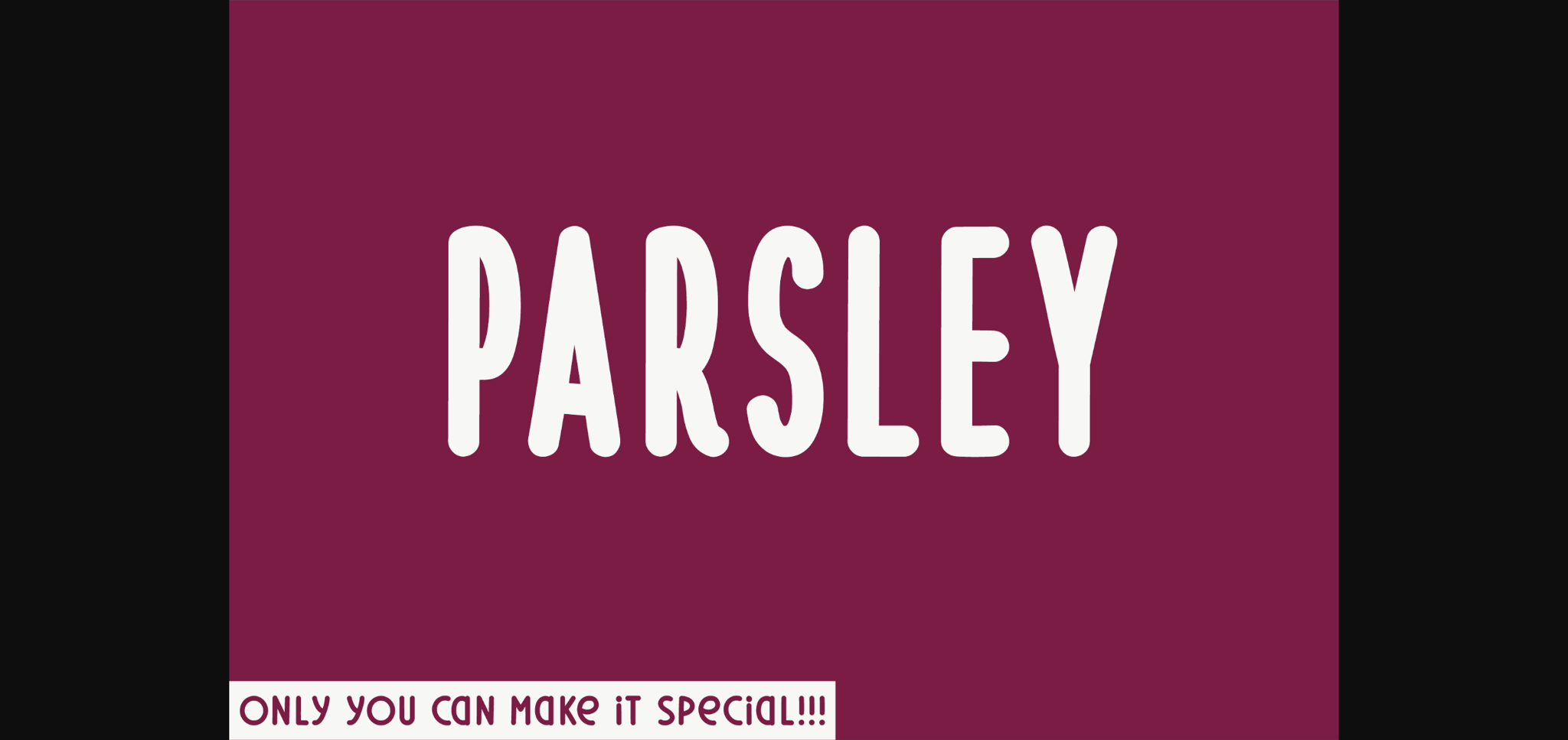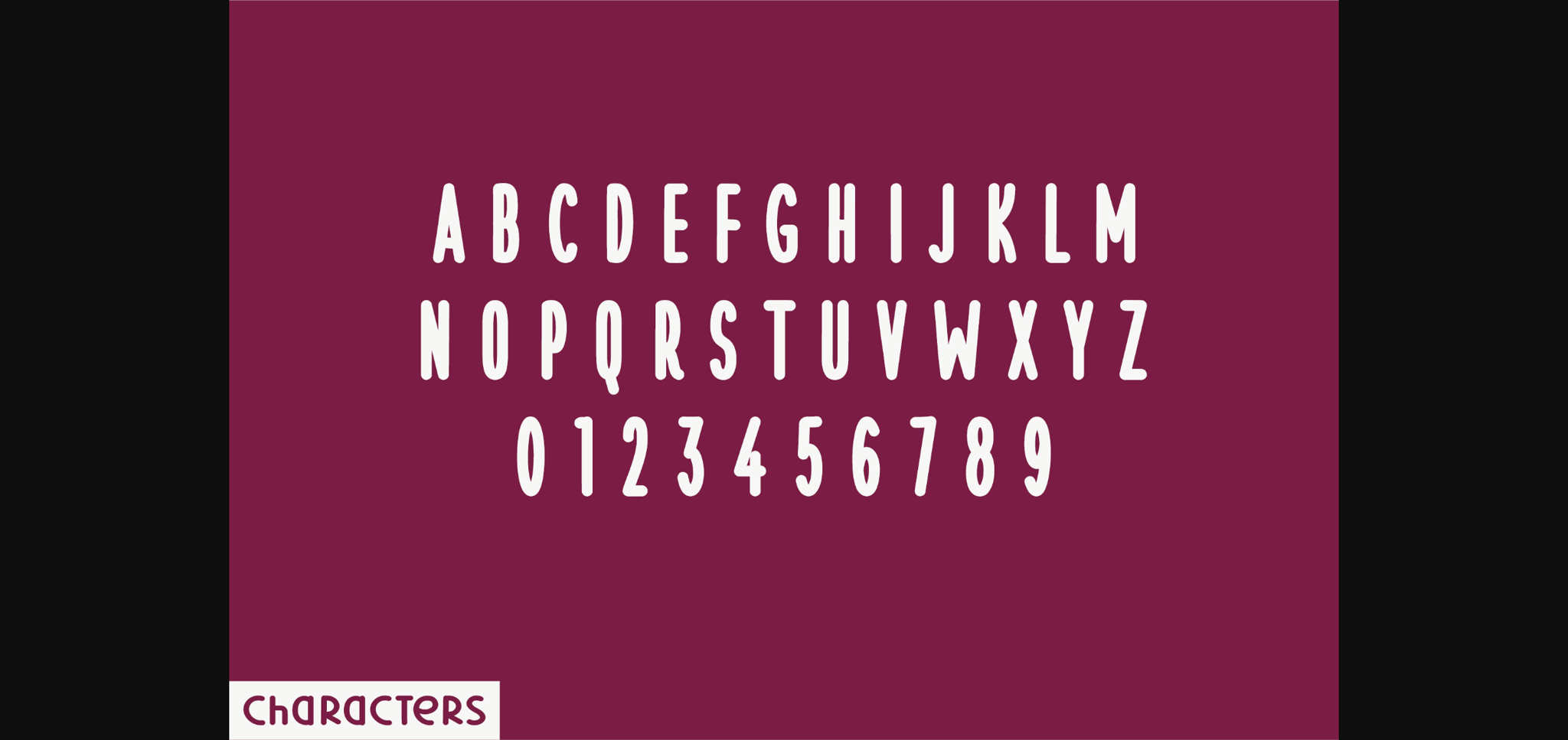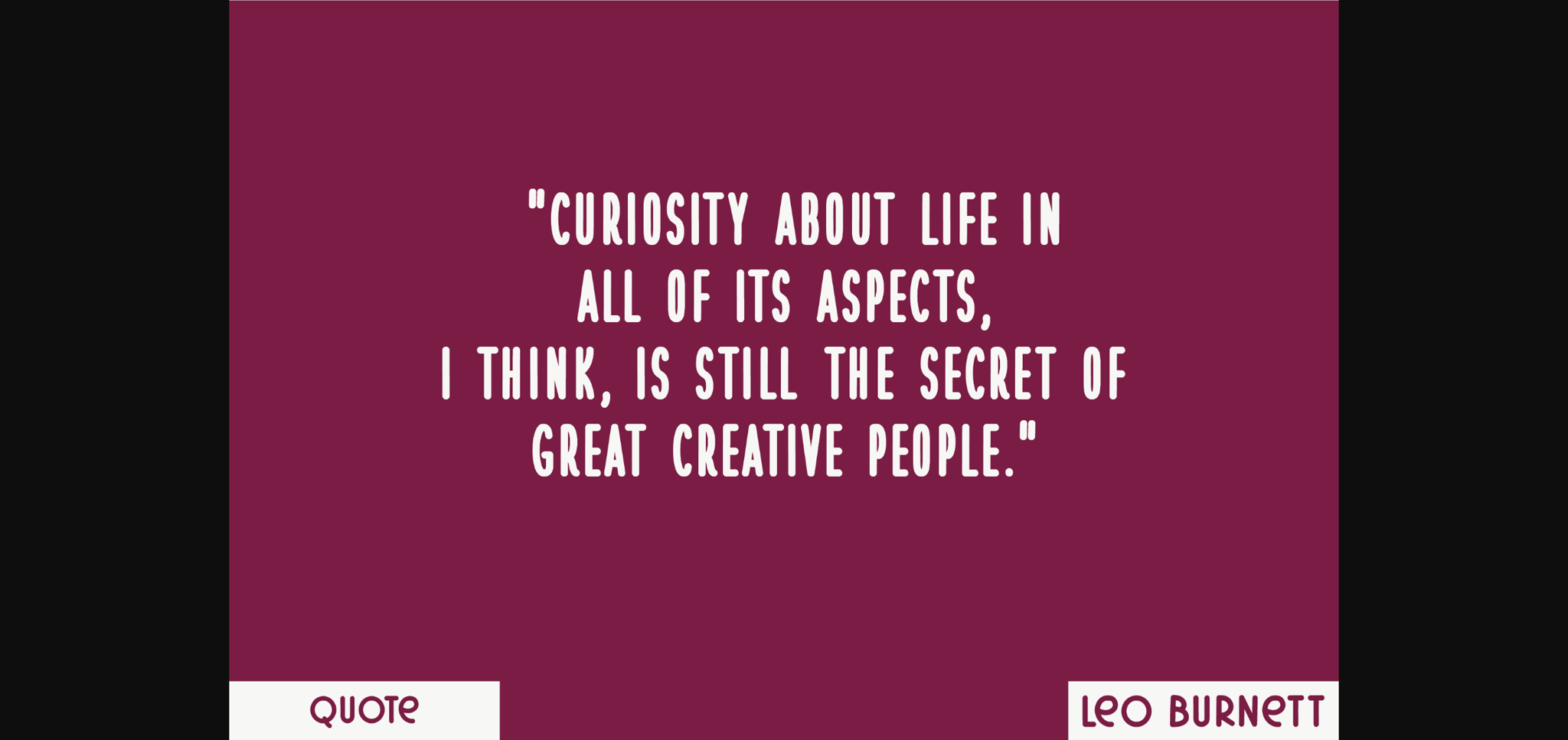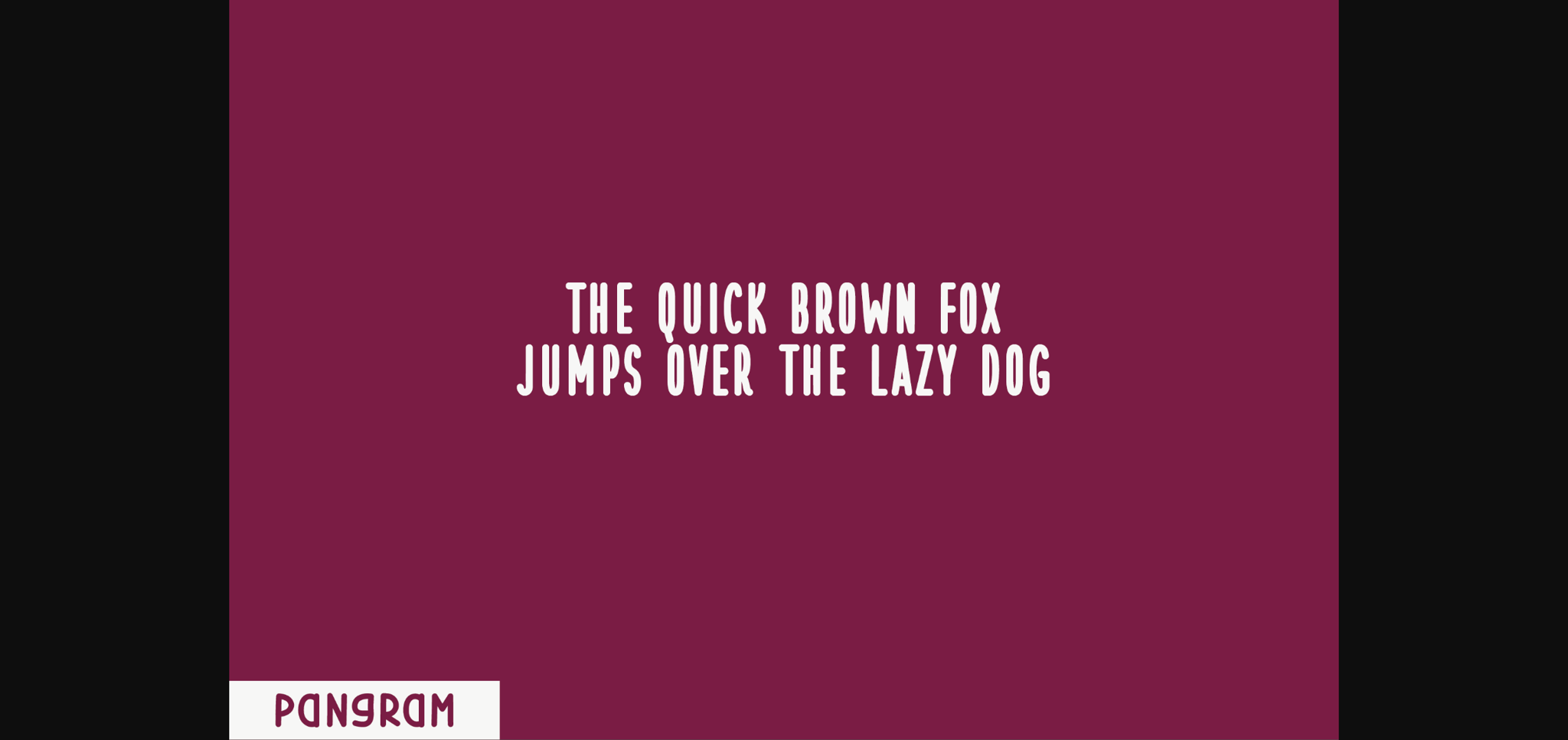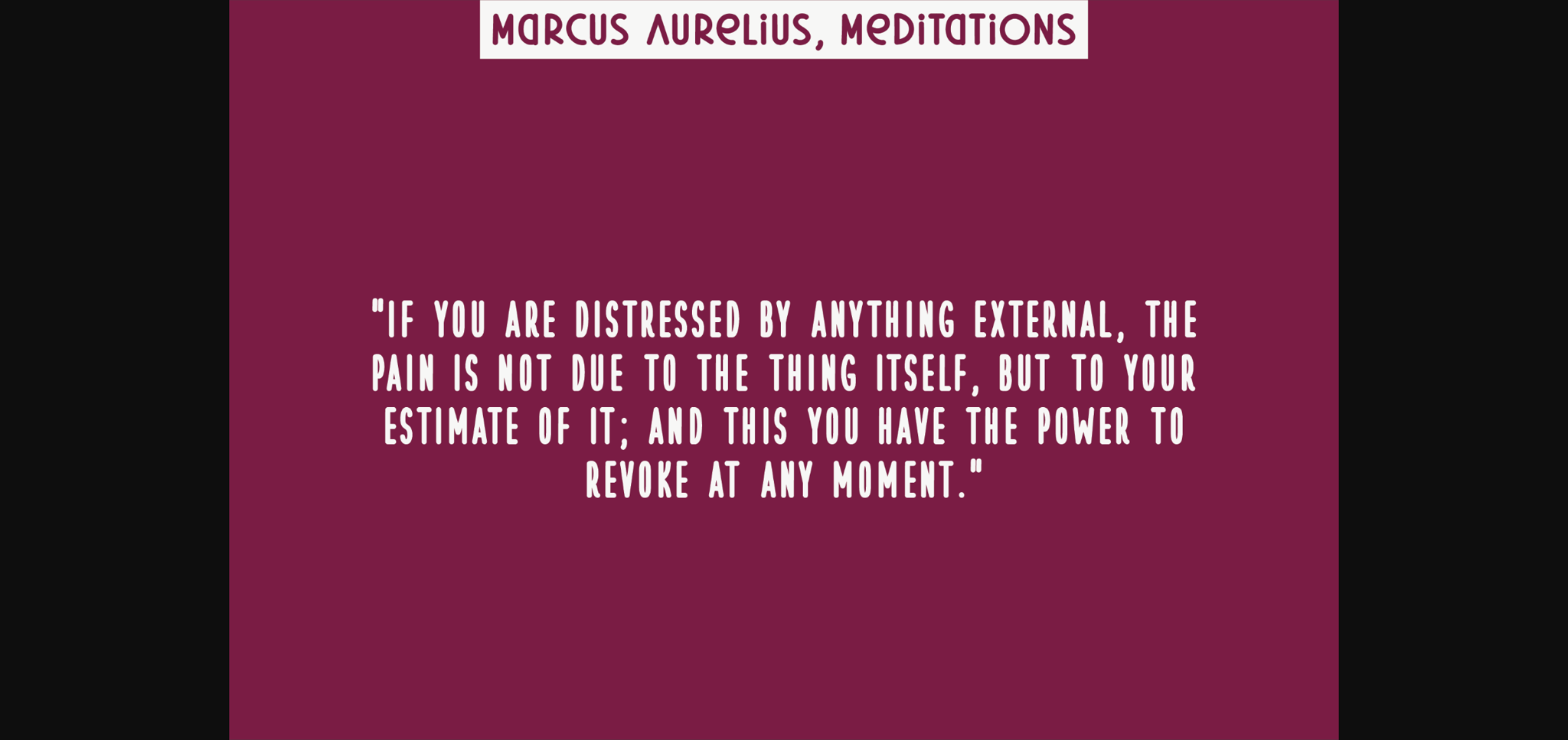
HomeSans Serif FontsParsley Font Sans Serif Fonts Parsley Font FacebookXPinterestWhatsApp 1 of 7 ... Parsley Font Poster 2... Parsley Font Poster 3... Parsley Font Poster 4... Parsley Font Poster 5... Parsley Font Poster 6... Parsley Font Poster 7... About Parsley Font Parsley is a natural sans serif font created without changing a single node in each character’s indentation – this makes this font very interesting and unique. Perfect for quotes, notes, tees, and any product design. DOWNLOAD NOW People also explored Acallypha Font All Alyssa Font Cake & Cutie Font Wildflowers Font Proofreader JNL Font Game on Winter Font Xmas Candy Font Shallow Font Milk Font 293 0 TagsParsleyParsley Font Previous articleThymed FontNext articleRootbeer Font LEAVE A REPLY Cancel reply Comment: Please enter your comment! Name:* Please enter your name here Email:* You have entered an incorrect email address! Please enter your email address here Website: Save my name, email, and website in this browser for the next time I comment. Personal Use Free Critical Personal Use Free Read more about this font Masker Area Personal Use Free Read more about this font Rina Personal Use Free Read more about this font Spring Personal Use Free Read more about this font BLOG Fonts That Capture the Spirit of New York City New York City is more than just a place—it’s an experience, a rhythm, a visual language... Elegant Wedding Invitation Fonts – Handwritten & Script Fonts The 10 Best Handwriting Fonts to Add Personality to Your Designs Modern Sans-Serif Fonts That Brands Love in 2025